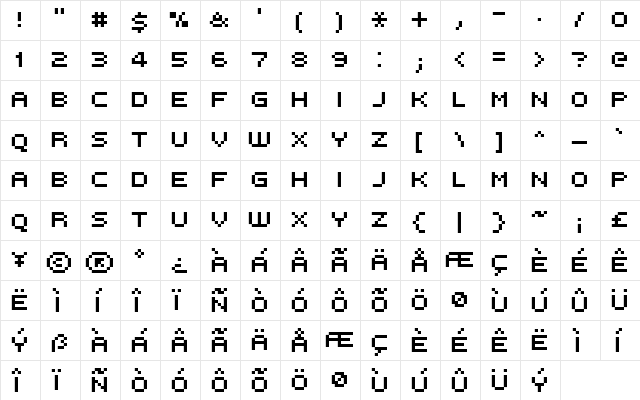
FFF Intelligent Thin Condensed Regular
Design Context for FFF Intelligent Thin Condensed Typeface
FFF Intelligent Thin Condensed is a composed and adaptable typeface that performs quietly and consistently across a wide range of design contexts. The delicate stroke weight brings airiness and refinement to layouts. The condensed width makes it efficient for tight spaces without sacrificing legibility.